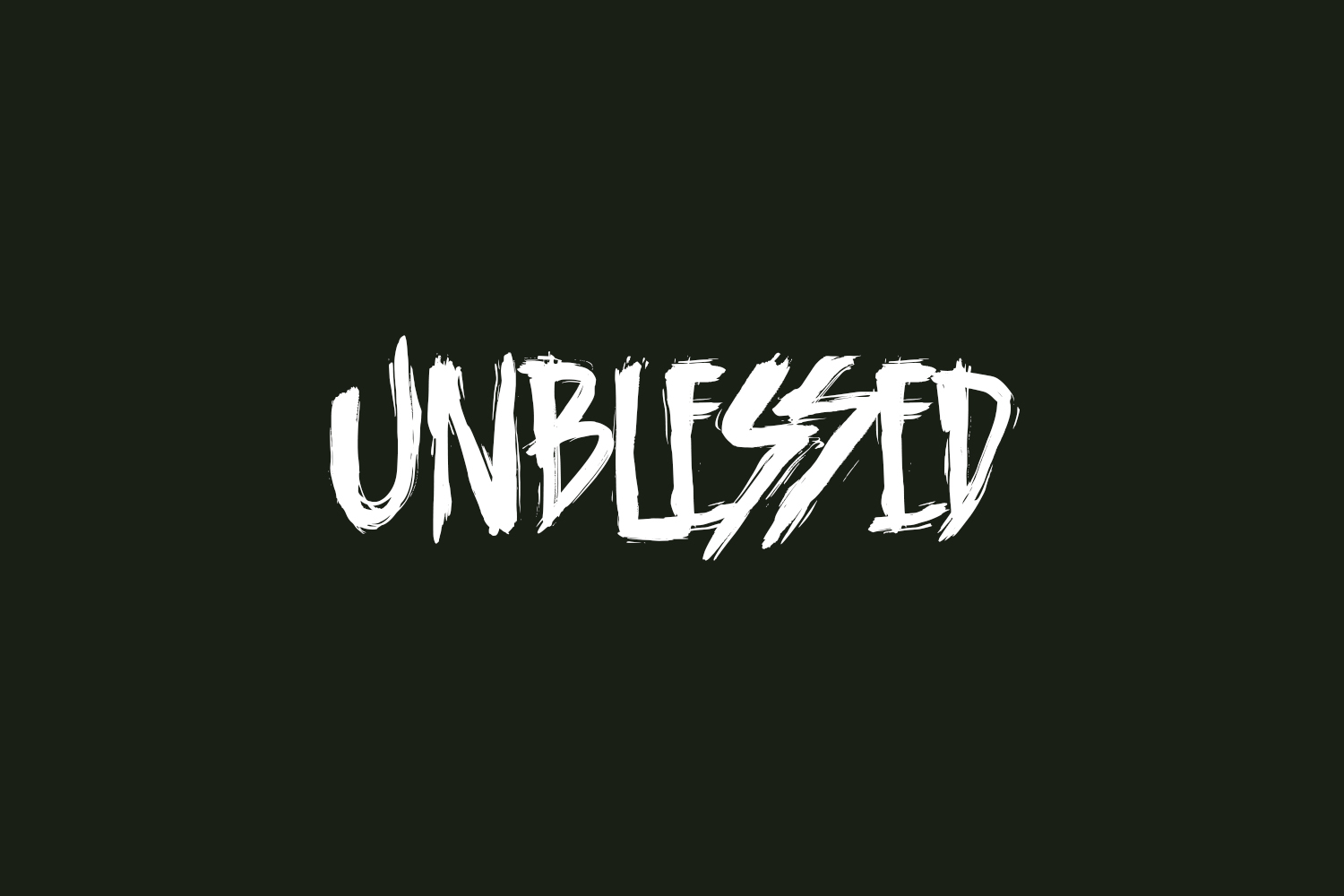
Unblessed Free Font is a creepy and dark looking display font. Add it to your Halloween crafts, horror movie posters, t-shirts, and anything else that requires a spectacular look. Unblessed Free Font was designed by Gassstype and is free for personal use only. Please purchase the full version for commercial use.